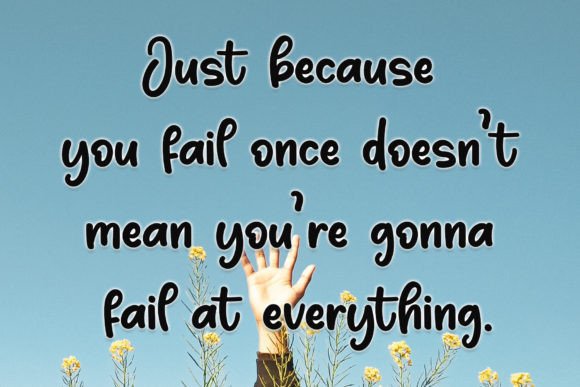
Introducing Setback Font: Elevate Your Designs with Elegance and Sophistication
In the world of typography, fonts play a crucial role in conveying the tone and personality of a brand or design. With thousands of fonts available, finding the perfect one that captures the essence of your project can be overwhelming. However, if you’re looking for a beautiful display font that exudes elegance and sophistication, look no further than Setback Font. In this article, we’ll explore the features and benefits of Setback Font, and how it can elevate your designs to new heights.
What is Setback Font?
Setback Font is a stunning display font designed to make a statement. Its unique and elegant design makes it perfect for a variety of applications, from magazine headlines to craft projects. With its clean lines, subtle curves, and precise kerning, Setback Font is sure to impress.
Why Choose Setback Font?
So, what sets Setback Font apart from other fonts? Here are just a few reasons why you should consider adding it to your font library:
- Elegant Design: Setback Font boasts a sophisticated and elegant design that’s perfect for high-end brands, luxury products, and creative projects.
- Versatility: Whether you’re designing a magazine, brochure, or craft project, Setback Font is versatile enough to fit any style or theme.
- Easy to Read: Despite its elegant design, Setback Font is surprisingly easy to read, making it perfect for headlines, titles, and short paragraphs.
- Unique Character: Setback Font has a unique character that sets it apart from other fonts, ensuring your designs stand out from the crowd.
Perfect for Magazines and Crafts
Setback Font is particularly well-suited for magazine designs and craft projects. Its elegant design and versatility make it perfect for:
- Magazine Headlines: Use Setback Font to create eye-catching headlines that grab readers’ attention.
- Craft Projects: Add a touch of elegance to your craft projects, such as handmade cards, invitations, and scrapbooking.
- Branding: Use Setback Font to create a consistent brand identity across your marketing materials.
Tips for Using Setback Font
To get the most out of Setback Font, here are some design tips to keep in mind:
- Use it sparingly: Setback Font is a display font, so use it sparingly to create emphasis and visual interest.
- Pair it with other fonts: Experiment with pairing Setback Font with other fonts to create a unique and harmonious design.
- Adjust the size and color: Play around with different sizes and colors to create visual hierarchy and emphasis.
In conclusion, Setback Font is a beautiful display font that’s perfect for magazines, crafts, and designs that require elegance and sophistication. With its unique design, versatility, and ease of use, Setback Font is sure to elevate your designs to new heights. Add it to your font library today and start creating spectacular designs that leave a lasting impression.